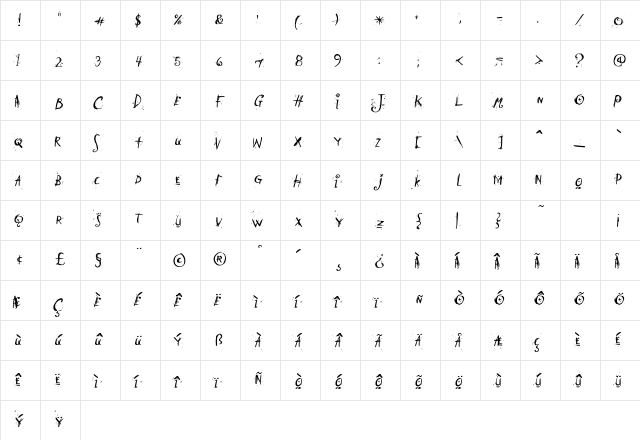
Cat Scratch Regular Font Preview
Cat Scratch Regular
Cat Scratch Regular Font Details
Design Context for Cat Scratch Typeface
Cat Scratch is a composed and adaptable typeface that performs quietly and consistently across a wide range of design contexts.